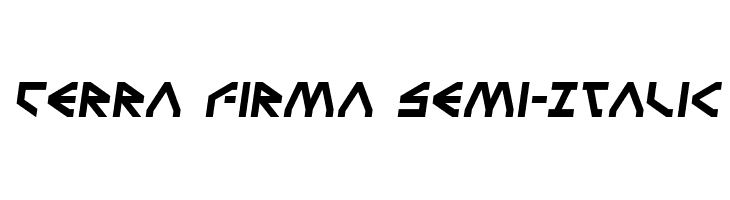
• Terra Firma Semi-Italic caratteri
A bold, angular font with a futuristic and geometric design.
• Terra Firma Super-Italic caratteri
A bold, angular, and italicized font with a futuristic design.
• Terrablox Regular caratteri
A bold, pixelated font with a geometric, retro video game style.
• terranika caratteri
An elegant, flowing script font with delicate, interconnected strokes.
• terranika caratteri
A delicate and flowing script font with elegant, thin strokes.
• Terrasick caratteri
A bold, brush-like font with jagged, energetic strokes.
• Terrible Cursive caratteri
A bold and expressive cursive font with interconnected letters and dynamic strokes.
• Terror Babble caratteri
A bold, rugged font with a distressed, hand-drawn appearance, perfect for dramatic themes.
• Terror Babble 3D caratteri
A bold, playful 3D font with a cartoonish, hand-drawn style.
• Terror Babble 3D Italic caratteri
A bold, 3D italic font with outlined characters and a playful style.